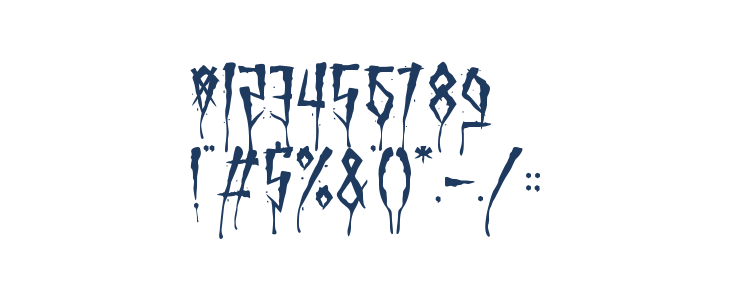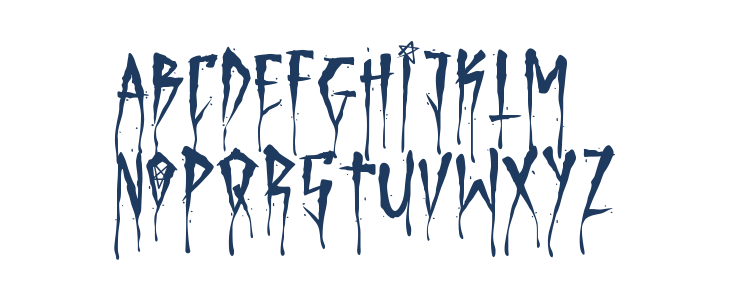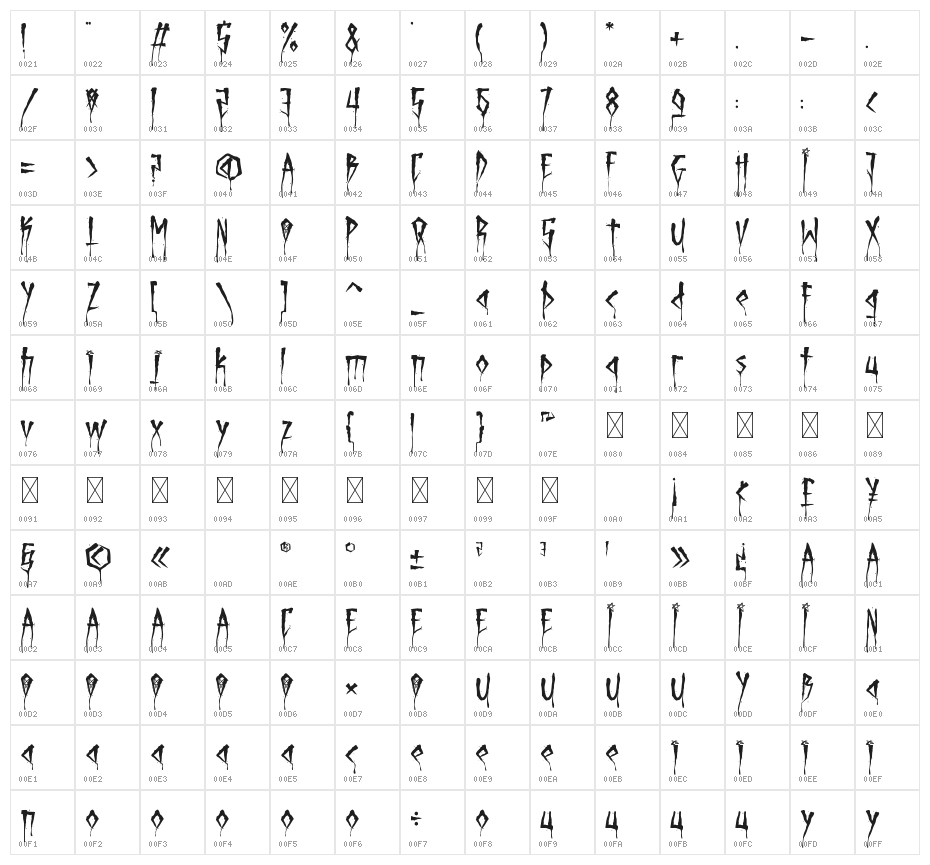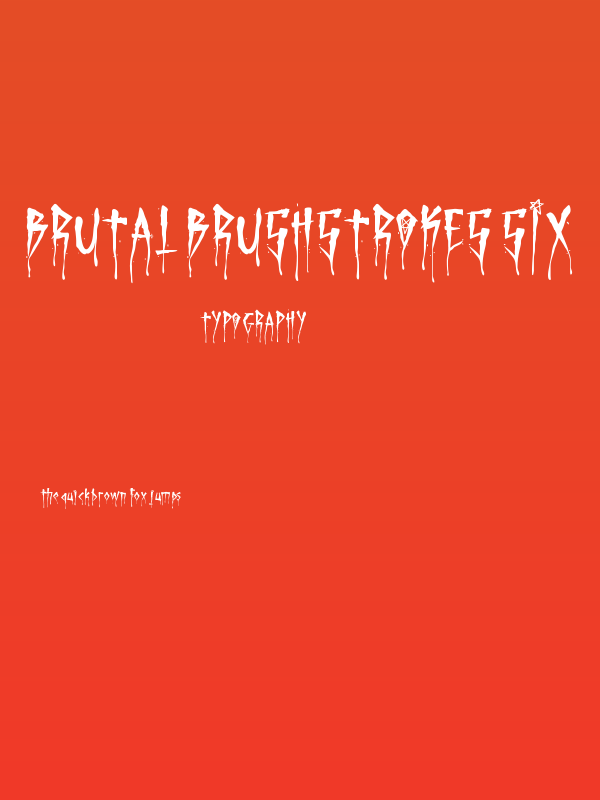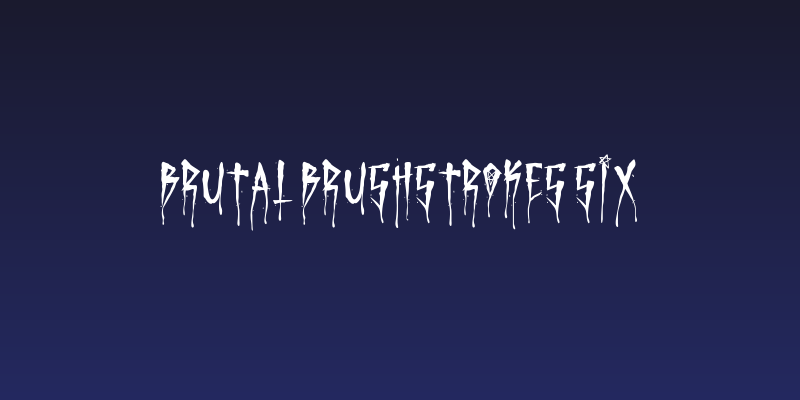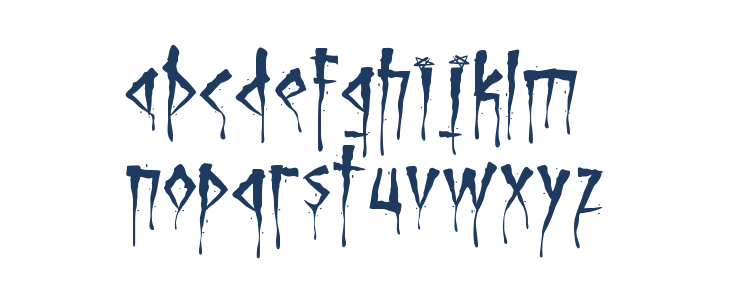
Brutal Brushstrokes Six Font
Brutal Brushstrokes Six Description
A highly expressive, hand-drawn brush font with jagged, elongated strokes and dramatic ink splatters, evoking a raw, chaotic, and intense visual impact. The characters are irregular, with uneven baselines and exaggerated ascenders and descenders, giving a distressed, almost horror-like appearance.
| Overall Style | Decorative, Grunge, Horror, Handwritten |
| Use Case | Headlines, Posters, Logos, Event Flyers |
| Proposed Projects | Horror movie posters, Halloween invitations, band logos, edgy branding, graffiti art, alternative music covers. |